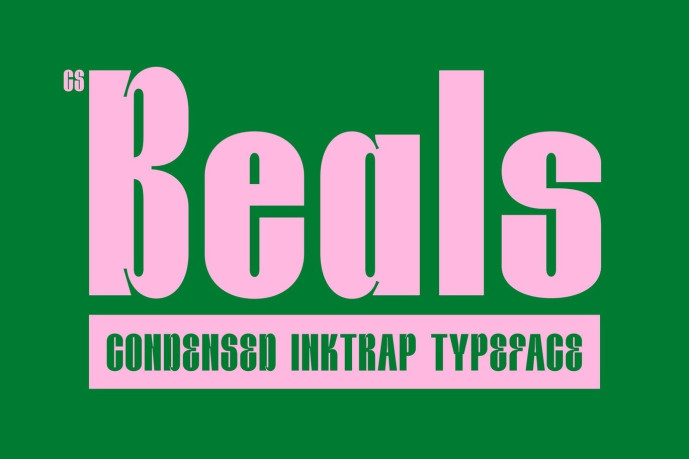
Beals – Inktrap Font
CS Beals – Bold Condensed Sans Serif Font: Where Strong Impact Meets Playful Inktrap Character Powerful Condensed Forms with Maximum Presence This is a bold condensed sans serif font designed to deliver strong visual impact through its tall, compact letterforms. Its condensed structure maximizes space efficiency while maintaining a commanding presence, making every word feel bold, confident, and impossible to overlook.
Playful Inktrap Details with Distinctive Personality What sets this font apart is its playful inktrap detailing, which introduces unique cuts and subtle design accents throughout the letterforms. These details add visual interest, character, and a contemporary edge while enhancing clarity and balance. The result is a typeface that feels both professional and expressive, combining structural precision with creative charm.
Bold Strength with Modern Versatility By blending powerful condensed proportions with distinctive inktrap features, this font creates a unique typographic identity that balances strength and personality. Its bold forms communicate confidence and authority, while the playful details add warmth and originality, making it adaptable across a wide range of creative and commercial applications.
Perfect for Eye-Catching Displays, Posters, and Branding Perfect for eye-catching displays, bold posters, branding projects, advertising campaigns, packaging, social media graphics, merchandise, event promotions, headlines, and modern visual identities. Its distinctive condensed forms and playful inktrap details make it ideal for logos, titles, and display typography that seek to communicate energy, confidence, and contemporary style.